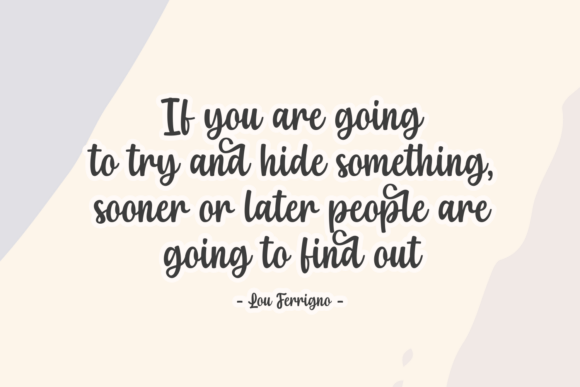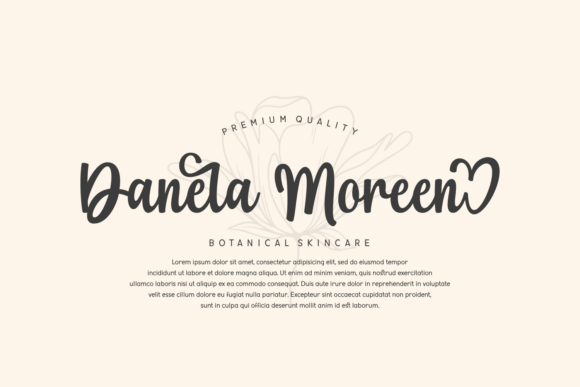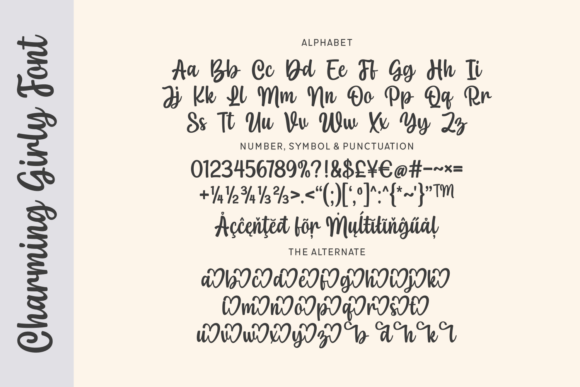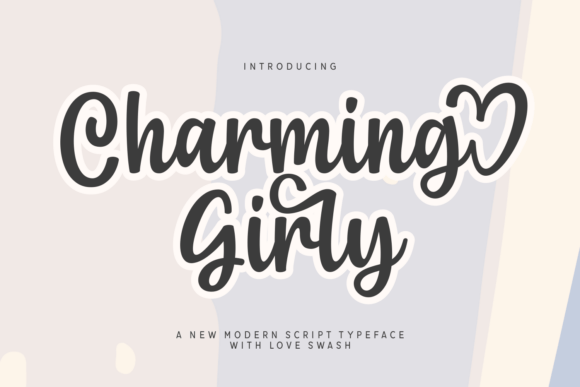
Where Words Meet Whimsy
Do you remember the moment when you stumbled upon the perfect font to match your creative vision? For designers and crafty enthusiasts, finding that special typeface can be a game-changer. It’s the moment when the words on your page or screen suddenly come alive with personality and charm. For many, that magical moment is made possible with the Charming Girly Font.
This delightful modern script typeface is designed to radiate sweetness and fun, making it the perfect choice for feminine designs, branding, and creative projects. With its bold yet playful lettering and unique love swashes, the Charming Girly Font adds a touch of charm and whimsy to any project. Whether you’re crafting wedding invitations or social media posts, this versatile font ensures it complements a variety of themes while standing out with elegance.
Key Features of “Charming Girly Font”
- Unique Characteristics: Includes swashes, ligatures, and alternate characters for a more personalized look
- Font Weight: Available in light, regular, medium, bold, and extra bold weights
- Style Variations: Includes a range of styles, including script, cursive, and handwritten variations
Designer Review: Charming Girly Font
Overall, I think the Charming Girly Font is a delightful addition to any design project that requires a touch of femininity and whimsy. Here are a few things that really stand out:
- ✨ Unique letterforms: Each letter in this font is carefully crafted to resemble hand-drawn illustrations, giving it a charming and personal feel.
- ✨ Versatility: Charming Girly Font can be used in a variety of contexts, from wedding invitations to fashion branding, and looks great in both digital and print formats.
- ⚠️ Limited font sizes: While the font looks great at larger sizes, it can become a bit difficult to read at very small sizes (less than 12pt).
- ⚠️ Some letter combinations: A few letter combinations can be a bit tricky to read, particularly those that involve similar shapes or strokes (e.g. “b” and “d”).
Overall, I think the Charming Girly Font is a great choice for designers who want to add a touch of personality to their projects. With a little creativity and attention to detail, it can be used to create truly beautiful and effective designs.
Tips for Getting the Most Out of Charming Girly Font
Here are some tips to help you get the most out of Charming Girly Font:
- Pair it with pastel colors or soft textures to enhance its charm.
- Use it for titles, headings, or quotes to add a touch of elegance.
The recommended font size for the Charming Girly Font is between 12pt and 24pt. This range provides optimal legibility and visual appeal for most design applications. However, you can experiment with different font sizes to achieve the desired effect for your specific project.